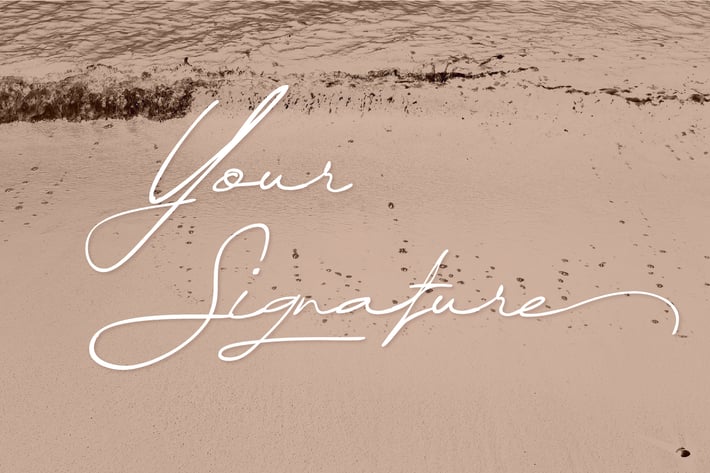
Your Signature - Handwritten | Signature Font
Your Signature - Script | Handwritten | Signature Font
Your Signature is a font created with handwritten style. It features an unique style and will add a natural and authentic feel to your upcoming projects. Get inspired by its authentic feel and use it to create designs, product packaging or posters and many more!
Special Character/ Alternate Glyphs included